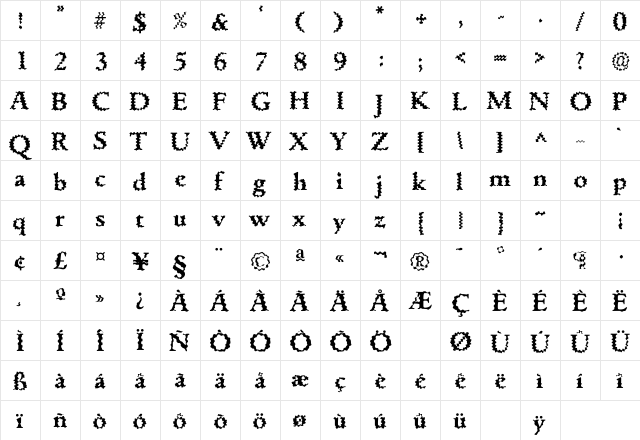
Meltdown SF Bold
Design Context for Meltdown SF Typeface
Meltdown SF is a composed and adaptable typeface that performs quietly and consistently across a wide range of design contexts. Its bold stroke weight gives it real presence on the page.